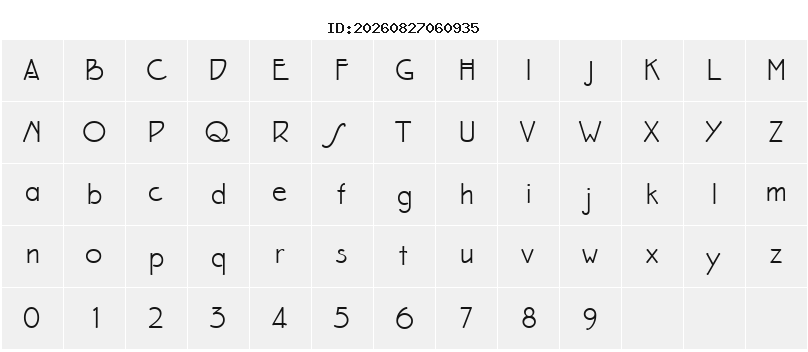
• Font Name: 592-CAI978
• Font ID: 592-CAI978:Version 1.00
• Full Font Name: 592-CAI978
• Version: Version 1.00 November 23, 1997, initial release
• PostScript Name: 592-CAI978
About 592-CAI978.ttf
592-CAI978.ttf is a modern, elegant sans-serif font designed for ultimate readability and visual harmony. Perfect for branding, headlines, web design, and print materials.